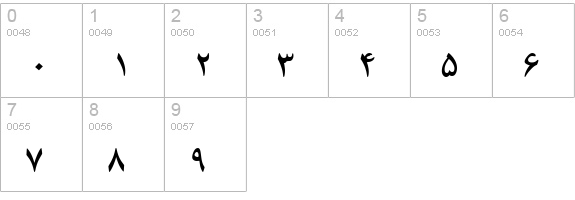
B Badr Bold is a strong, high-contrast variant in the B typeface family \xE2\x80\x94 well suited to headlines, attention-grabbing titles, and strong calls-to-action.
B Badr Bold font is a striking and eye-catching typeface that exudes confidence and boldness. Its strong, thick lines make it perfect for headlines, titles, and other attention-grabbing text. The font's modern and edgy design sets it apart from traditional serif fonts, making it a great choice for projects that require a contemporary and impactful look. What's even better is that B Badr Bold font is available for free download at FontsMarket.com. This means that you can easily access this stylish and versatile font without any cost, making it a valuable addition to your design toolkit. Whether you're working on a poster, flyer, website, or any other graphic design project, B Badr Bold font is sure to make a statement and leave a lasting impression on your audience. Download it today and elevate your designs with this impressive typeface.